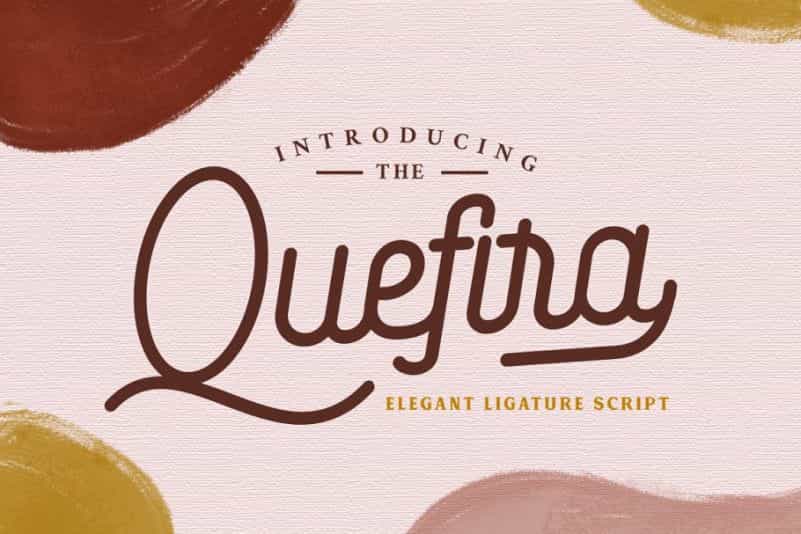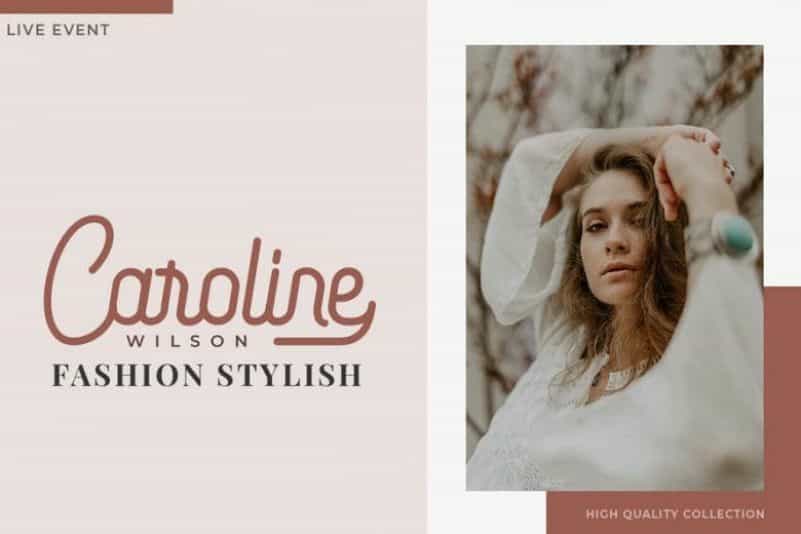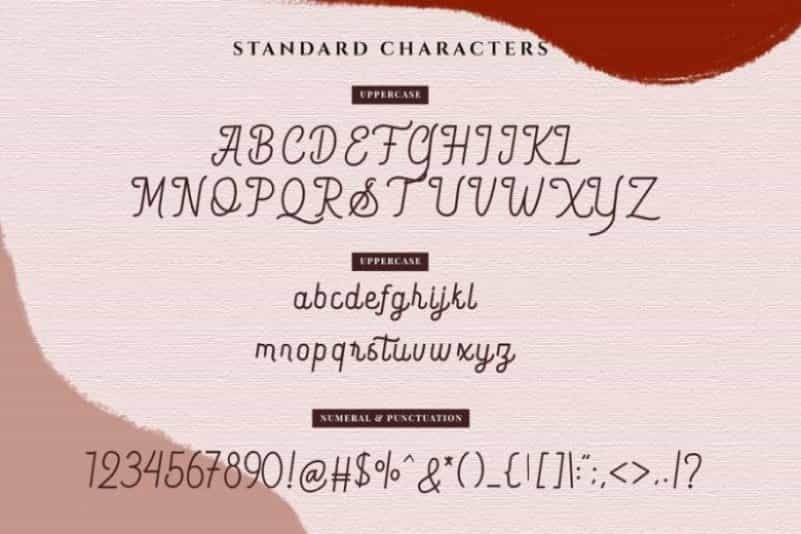
Introducing Quefira Font. It is a simple and clean script with nice ligature and alternate font. Besides, it also works perfectly as a logo, quote, and any other thing you might want to use it for. All the characters have a natural look in design because of the imperfect shape that they have.